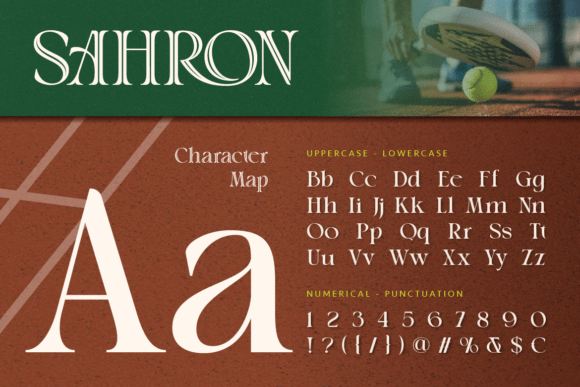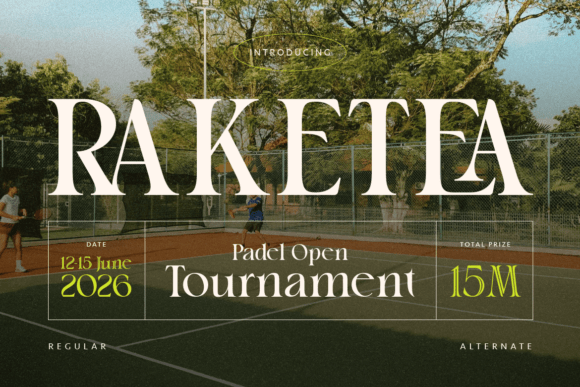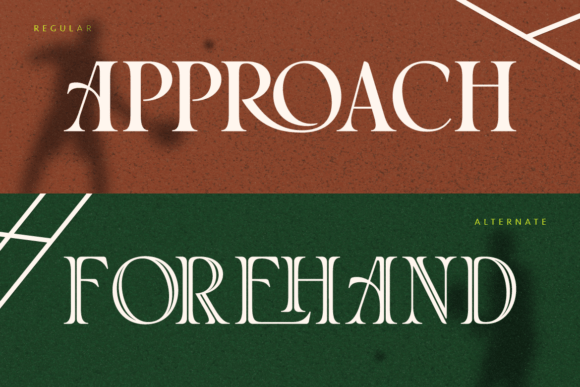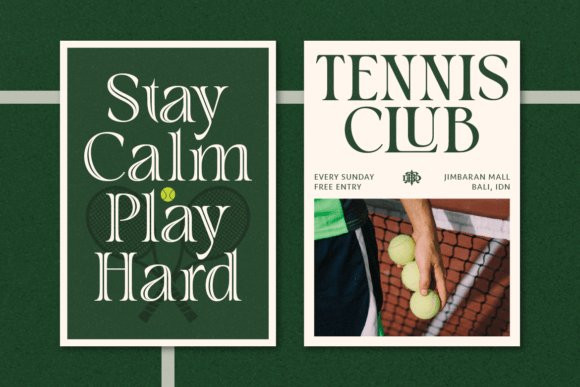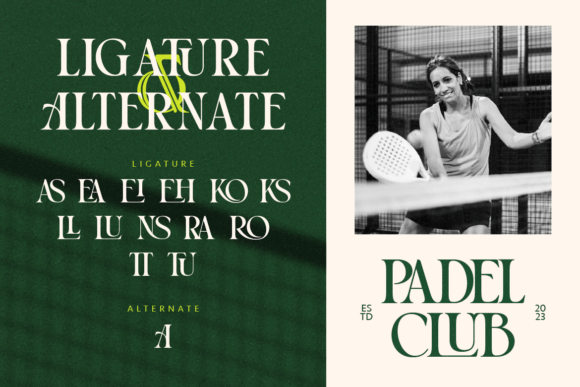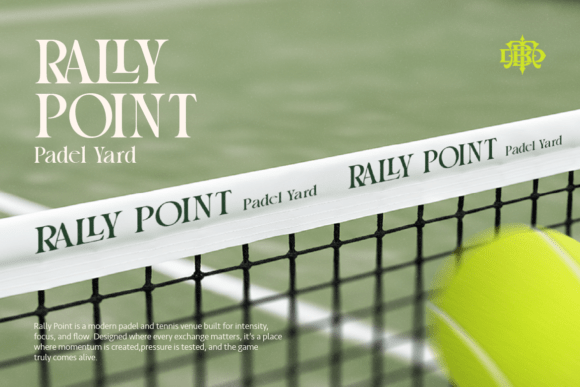
Introduction to Sahron Font
Have you ever stared at a blank canvas, waiting for inspiration to strike, only to find yourself lost in a sea of fonts, each one screaming for attention? It’s a familiar creative conundrum, but one that can be solved with the perfect design resource. For those seeking a touch of sophistication and elegance in their work, the Sahron Font is a game-changer.
This stunning serif font boasts a unique inline detail that adds a level of character and refinement, making it perfect for a wide range of creative projects. With its clean letterforms, smooth curves, and high-quality design, the Sahron Font is an invaluable addition to any designer’s toolkit. Whether you’re working on a premium marketing design, a luxury logo, or an editorial layout, this font is sure to elevate your work to the next level.
What sets the Sahron Font apart is its ability to strike the perfect balance between modernity and timelessness. It’s a design that will stand the test of time, and with its transparent background and free download option, it’s easily accessible for any creative project.
Key Features of Sahron Font
- Includes a range of weights and styles, offering versatility for different design applications and creative projects.
- Designed with precision, ensuring a crisp and clear appearance at high resolutions (up to 300 DPI).
Honest Review: Sahron Font
I recently stumbled upon the Sahron Font, and I have to say, it’s a great addition to any designer’s toolkit. This high-quality font is a free download, making it a fantastic resource for creative projects.
What works well: ✨ The Sahron Font is incredibly versatile, with a range of styles that can be used for everything from logos to body text. The font is also highly customizable, with options for adjusting the size, color, and even the background (although it’s worth noting that the transparent background feature is a bit finicky).
- Great for creative projects: The Sahron Font is perfect for designers who want to add a touch of elegance and sophistication to their work.
- High-quality: The font is crisp and clear, making it ideal for both digital and print projects.
However, there are a few limitations to keep in mind: ⚠️ The font can be a bit overpowered if used in large quantities, and some users have reported issues with compatibility on certain platforms.
Overall, I’m really impressed with the Sahron Font. It’s a great addition to any designer’s toolkit, and I would definitely recommend it to anyone looking for a high-quality, versatile font for their creative project.
The Sahron Font is a high-quality, free download design resource ideal for creative projects requiring a unique touch. Its transparent background makes it versatile for use in various applications.
Common Use Cases for Sahron Font
The Sahron Font is ideal for creative projects such as:
1. Social media graphics
2. Blog posts
3. Infographics
Tips for Getting the Most Out of Sahron Font
1. Experiment with different font sizes and colors to achieve the desired effect.
2. Use the Sahron Font in combination with other design elements to create a unique look.